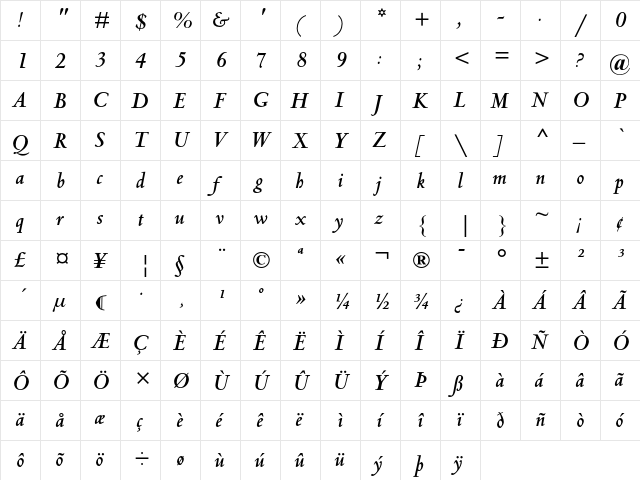
Centaur Regular Font Preview
Centaur Regular
Centaur Regular Font Details
Design Context for Centaur Typeface
Centaur is a composed and adaptable typeface that performs quietly and consistently across a wide range of design contexts.